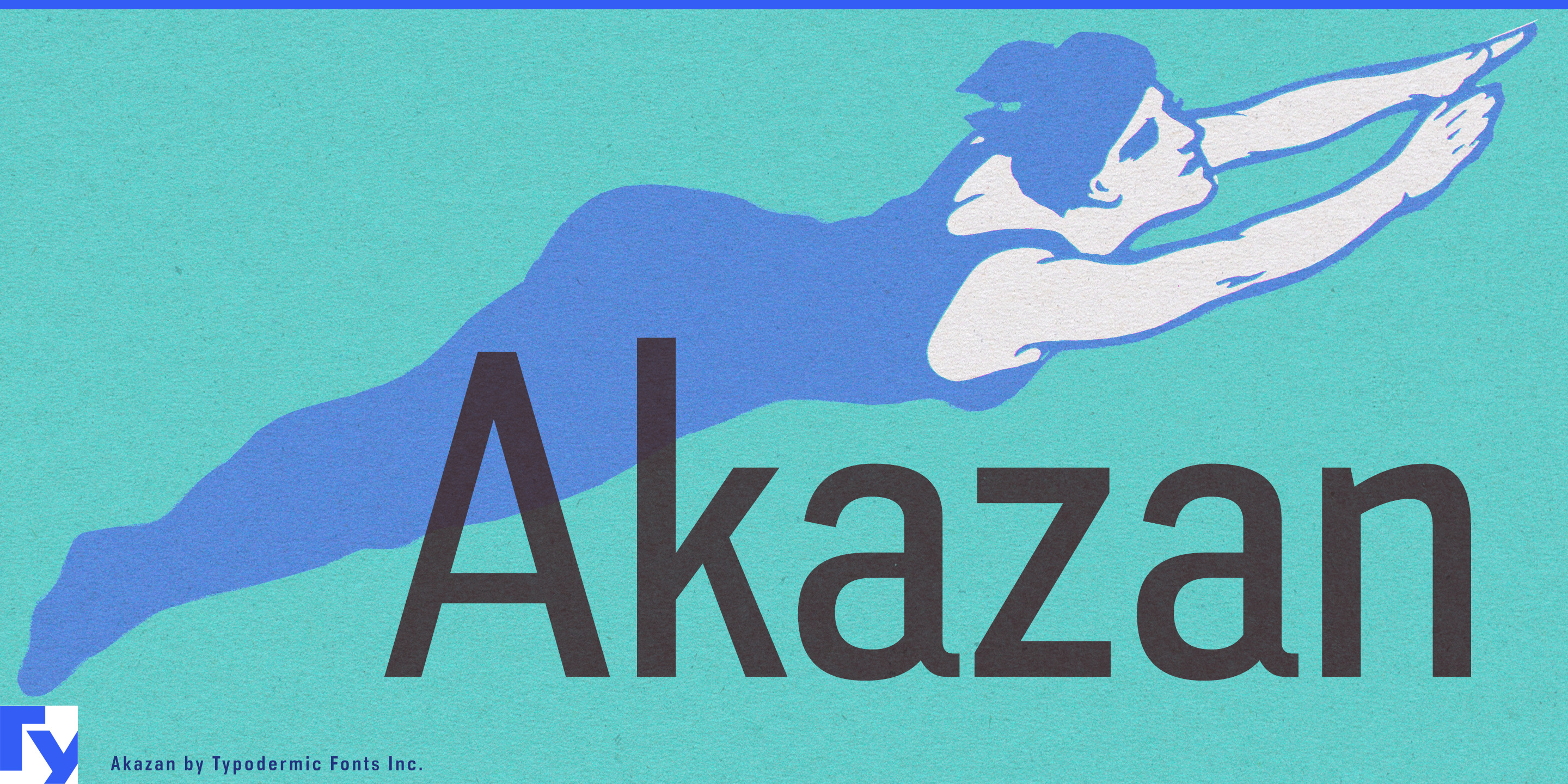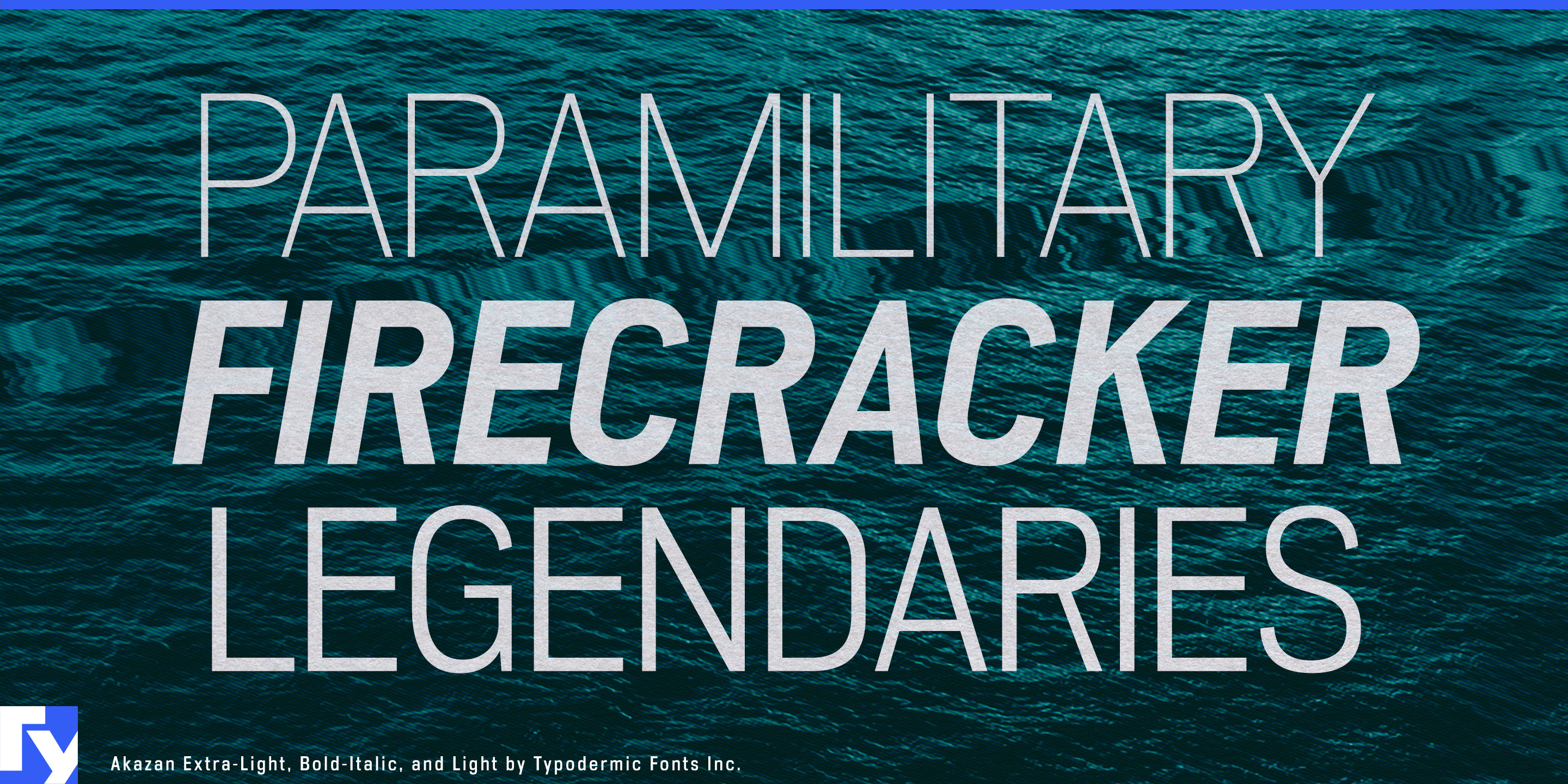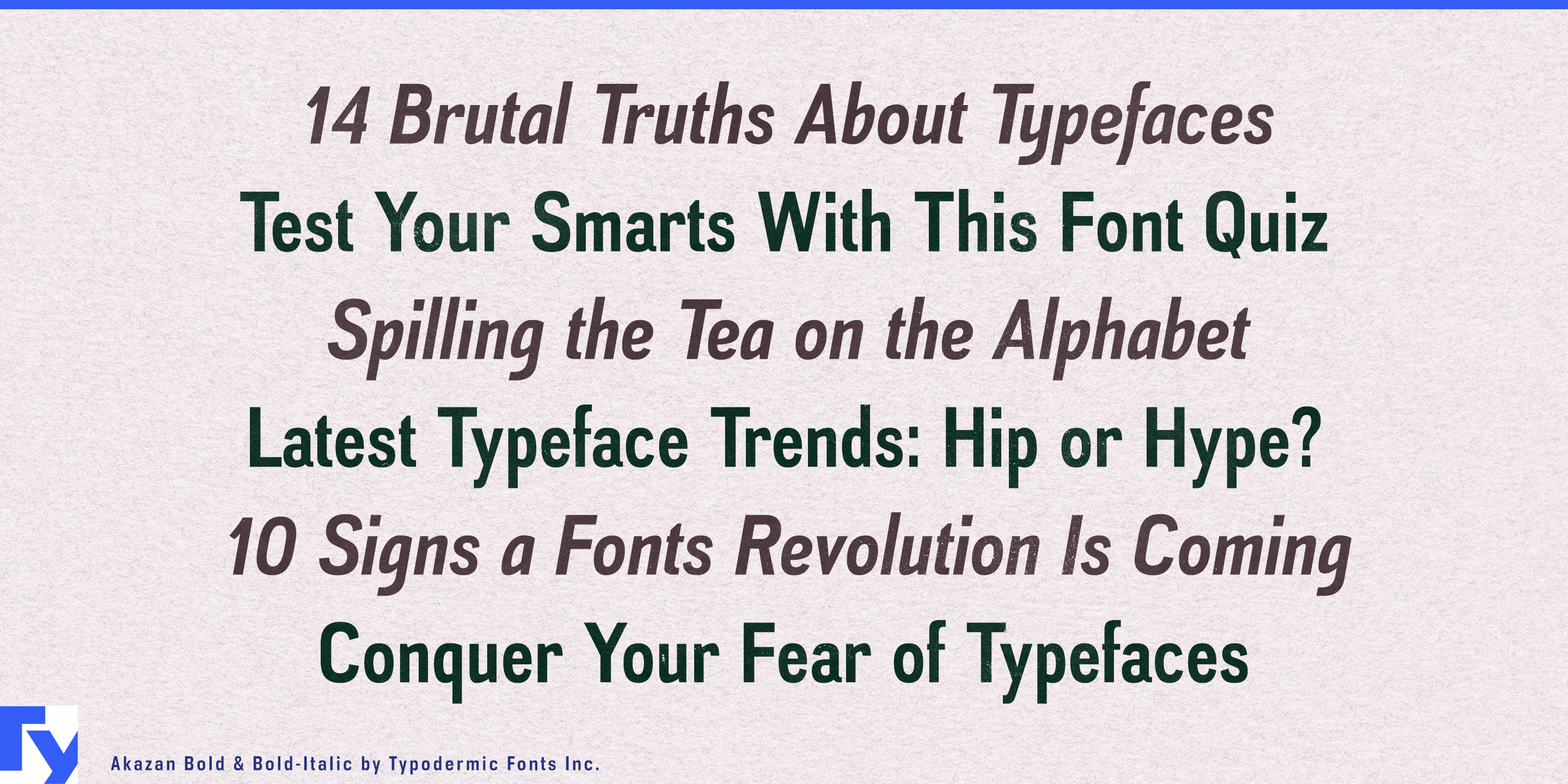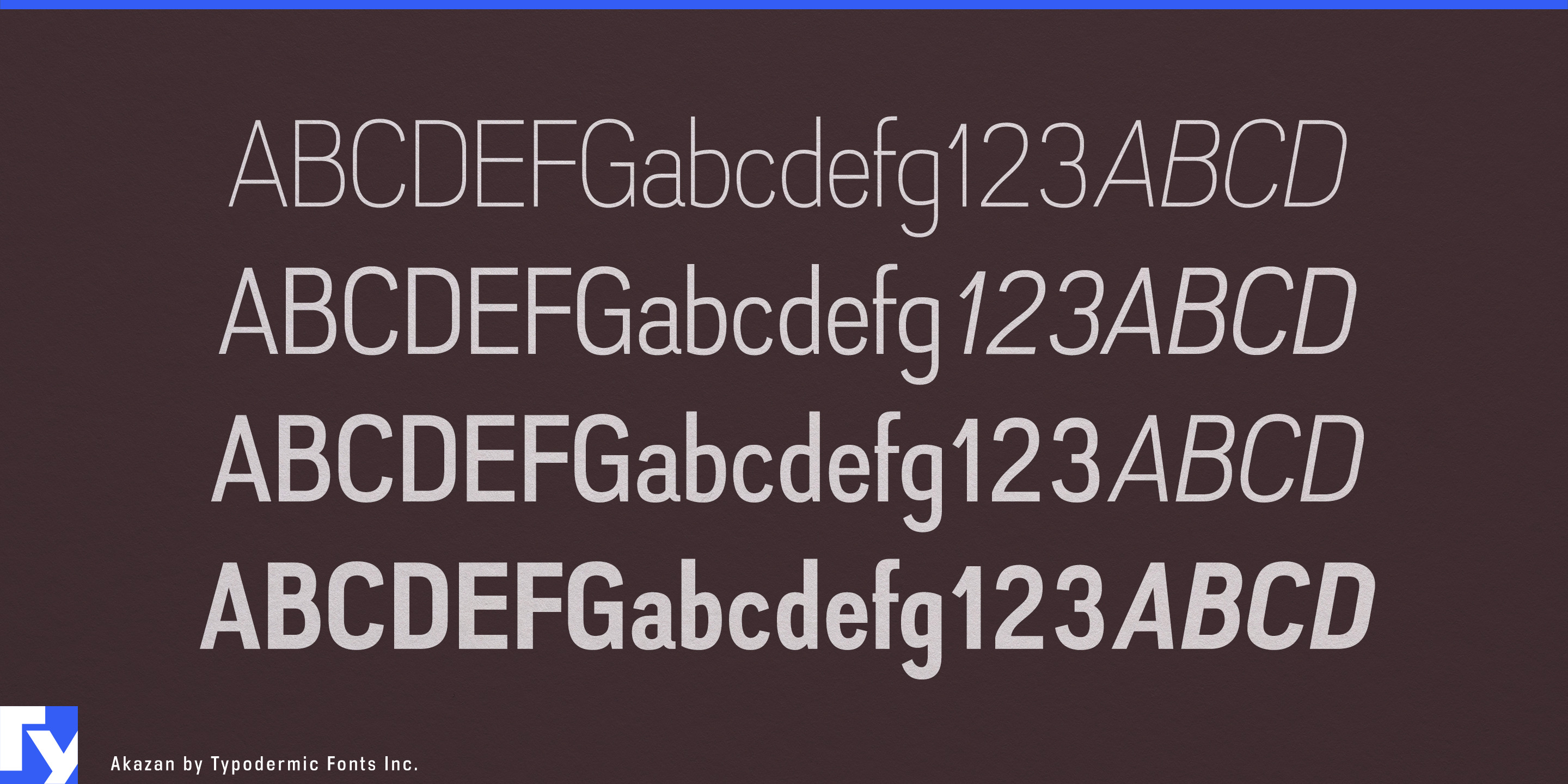
Akazan
Health branding often gets pushed toward two extremes. Clinical typography can feel cold and institutional; wellness branding can become soft, cheerful or vaguely lifestyle-oriented. Akazan occupies the quieter space between them: compact, technically credible and restrained, with enough human modulation to keep the message from sounding mechanical.
Its construction has the efficiency and discipline associated with DIN-style sans-serifs, but the low x-height changes the voice considerably. Lowercase sits more quietly on the line, while subtle stroke modulation softens the engineered structure without turning it rounded or informal. Four weights with matching italics provide hierarchy for product names, range titles, campaign headings and short supporting display copy.
Premium supplements and clinical nutrition are particularly well suited to that balance. Multivitamins, mineral formulations, probiotics, omega products, sleep supplements, electrolyte powders and specialist nutritional ranges often have long ingredient names, dosage strengths and numerous variants competing for limited packaging space. Akazan’s compact proportions leave room for that information without the aggressive tone of sports nutrition or the sterile atmosphere of laboratory labeling.
Pharmaceutical and over-the-counter ranges present a similar branding problem. Pain relief, allergy care, digestive-health products, sleep aids and dermatology treatments need product names and campaign typography that feel medically credible without becoming intimidating. Clinical skincare extends the same territory into barrier-repair products, acne treatments, scalp care, retinoid systems and dermatologist-developed moisturizers that need to look more scientific than conventional cosmetics.
Home diagnostics and preventive-health products push the idea into newer categories. At-home blood tests, hormone kits, microbiome testing, metabolic-health monitoring, sleep diagnostics and fertility products need kit names, package headings and promotional graphics that feel legitimate without resembling hospital equipment. Personalized nutrition, biomarker programs and longevity products occupy a related space between medicine, data and wellness.
Private-label vitamins, first-aid ranges, pharmacist-developed products and dermocosmetics may involve dozens of SKUs with unfamiliar ingredients and changing product names. Akazan’s condensed structure helps those ranges stay organized while its quieter lowercase prevents the shelf from becoming a wall of shouting technical language.
Akazan is strongest when a health product needs to sound informed rather than clinical, calm rather than cute. Its DIN-like structure supplies order and credibility; its low x-height and modulation lower the volume.